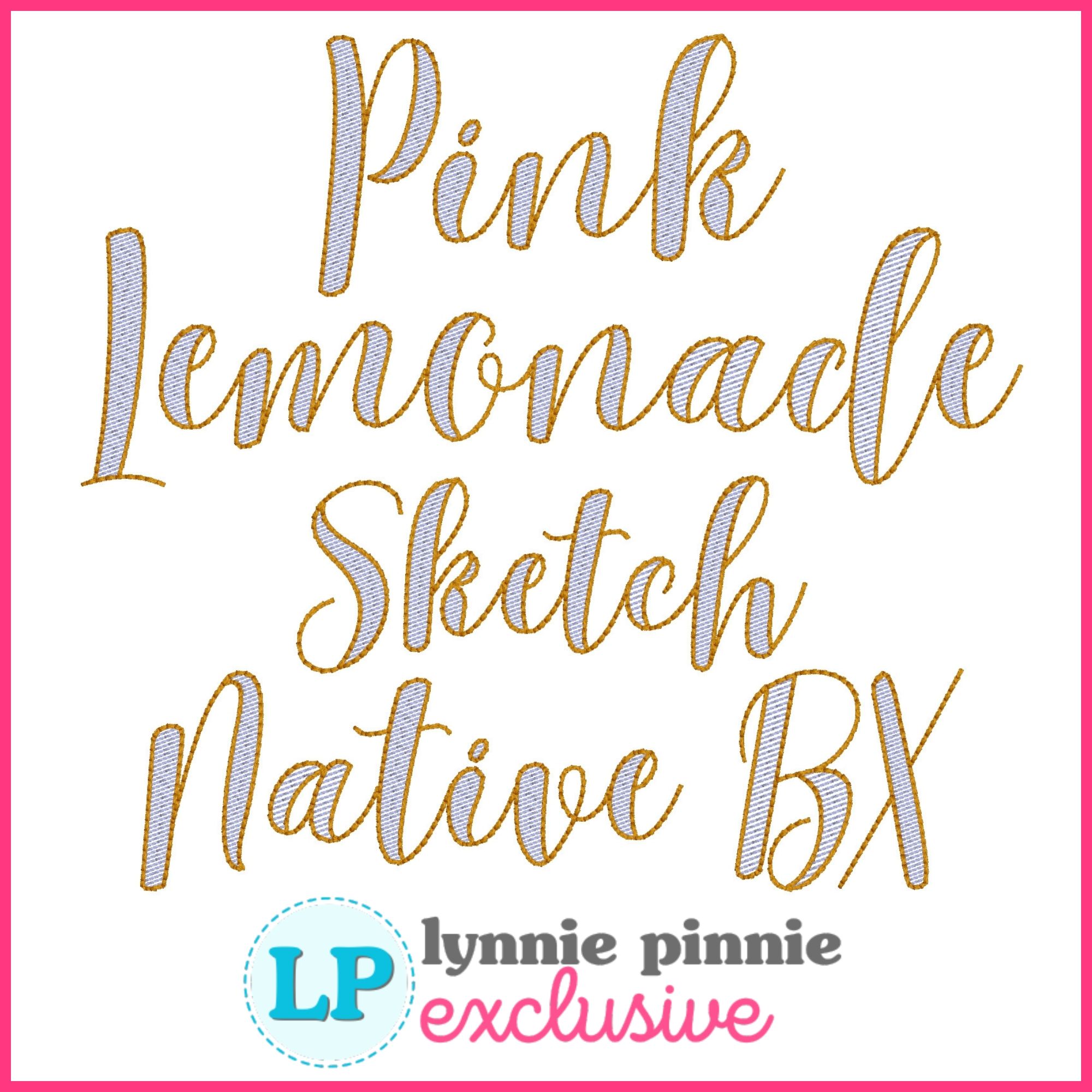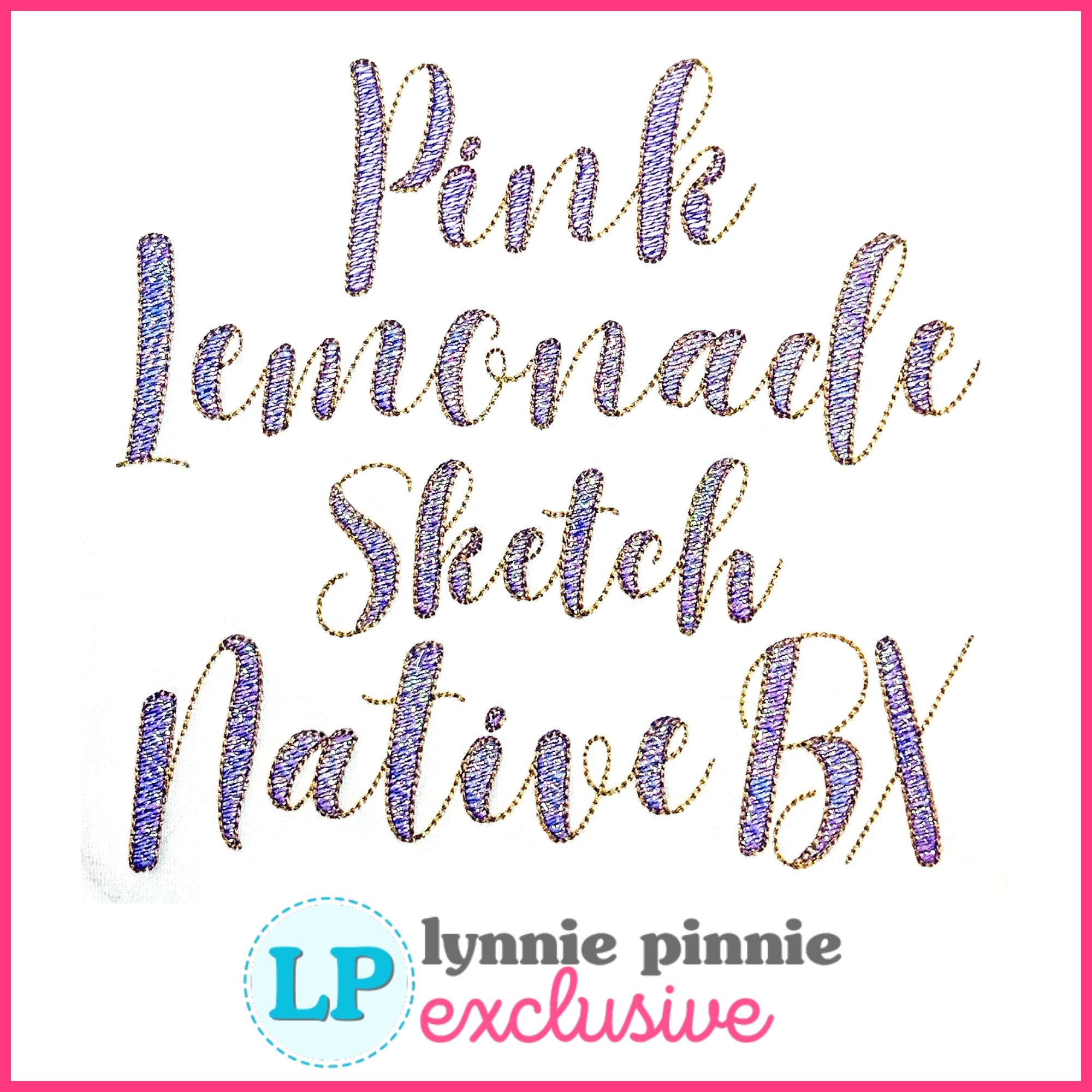
Pink Lemonade Sketch Fill (optional mylar) Machine Embroidery Font – 7 Sizes + Scalable Native BX File
Pink Lemonade Sketch 2 Color is an uppercase and lowercase machine embroidery font with a fun, playful vibe optional mylar-friendly fill and contrasting outline. It includes numbers, punctuation, and a sketchy look that’s perfect for standout monograms, names, or gifts.